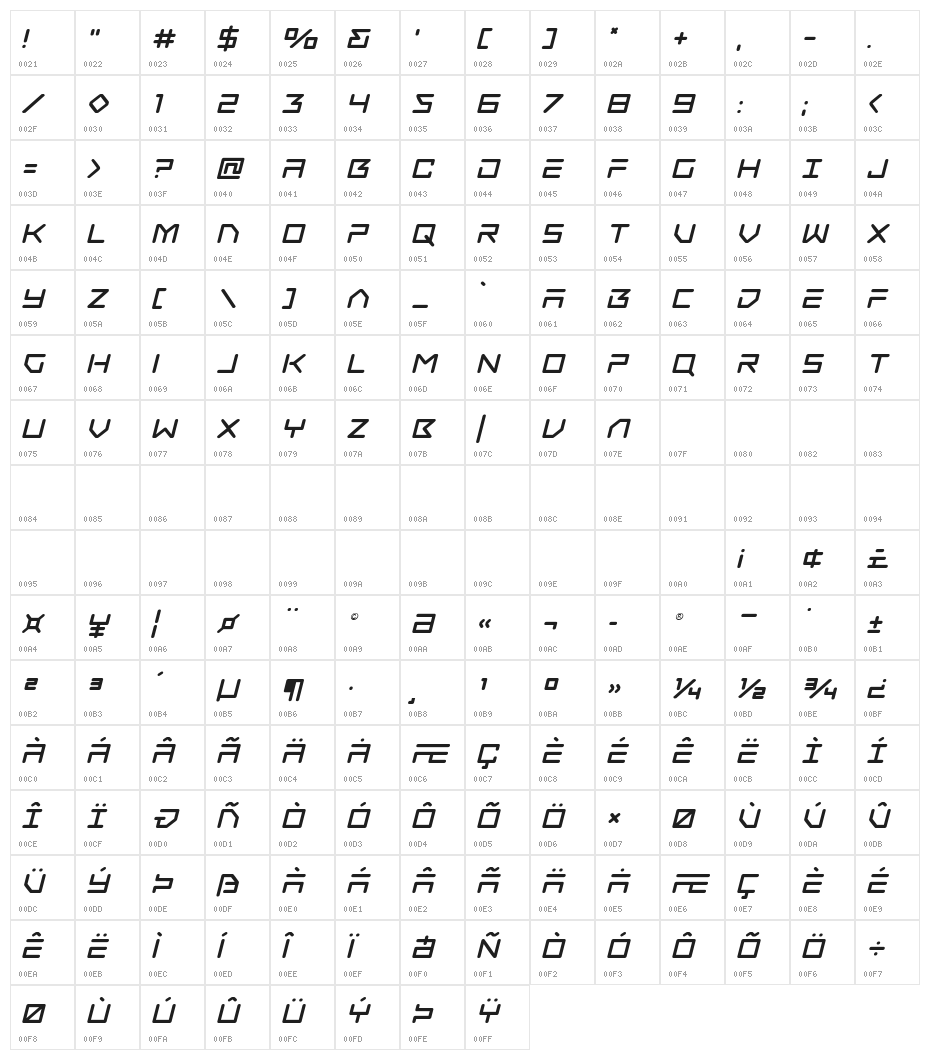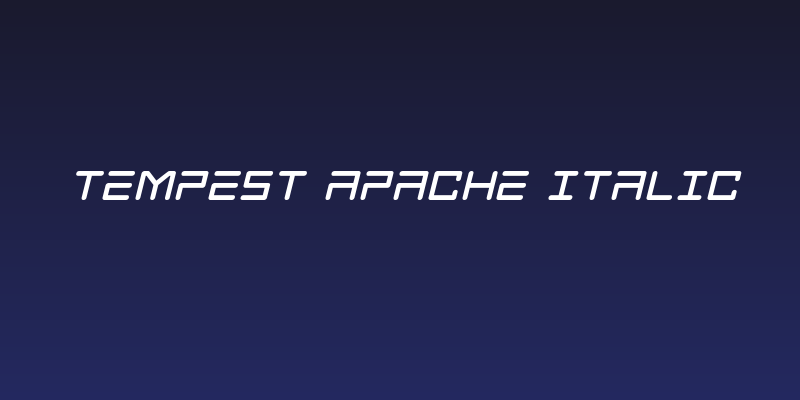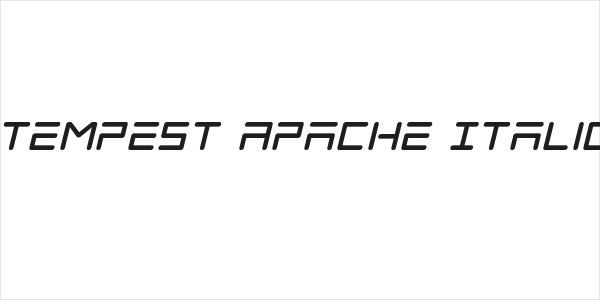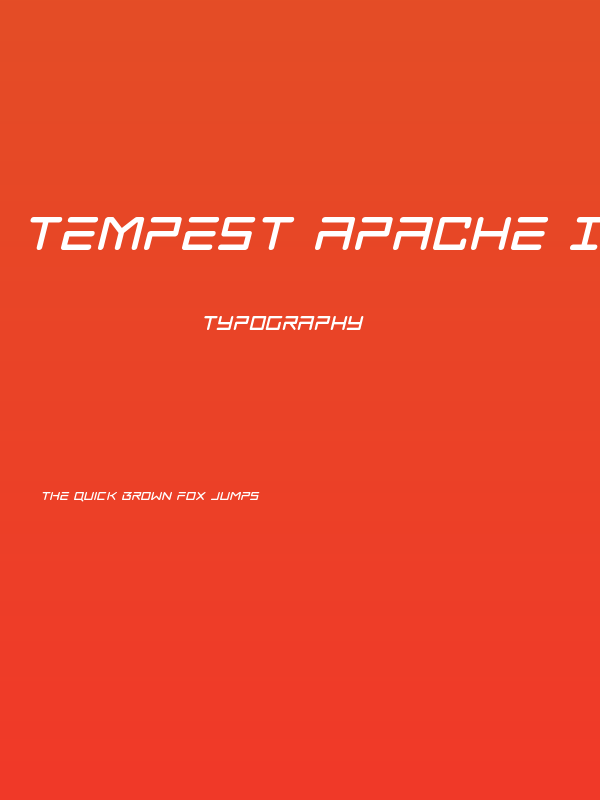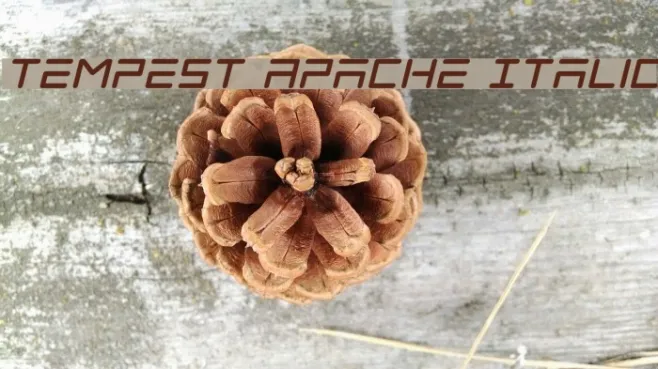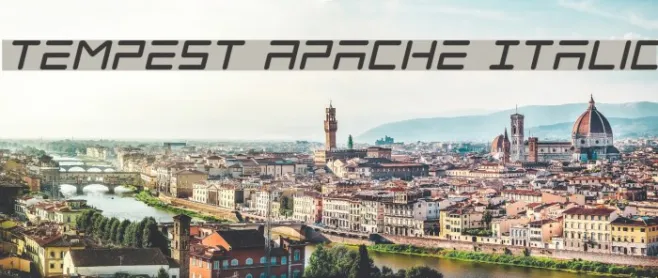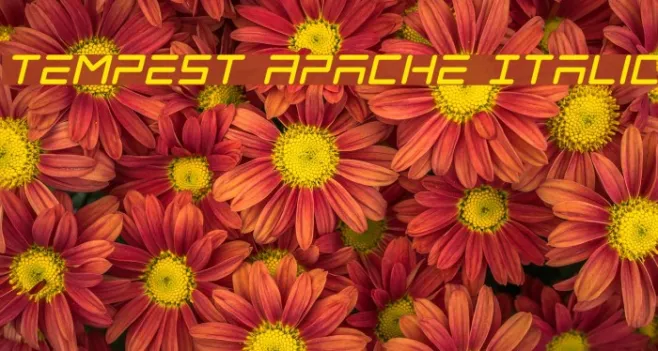
Tempest Apache Italic Font
Tempest Apache Italic Description
This font features a modern, angular design with a futuristic flair. The characters are slightly italicized, giving a sense of motion and dynamism. Each letter is crafted with clean, straight lines and sharp edges, creating a sleek and contemporary look. The uniform stroke width across all characters contributes to a cohesive and balanced appearance. The numbers and special characters maintain the same stylistic elements, ensuring consistency throughout. This font is ideal for projects that require a modern and tech-savvy aesthetic.
| Proposed Projects | Ideal for technology branding, video game titles, sci-fi book covers, and modern advertising campaigns. |